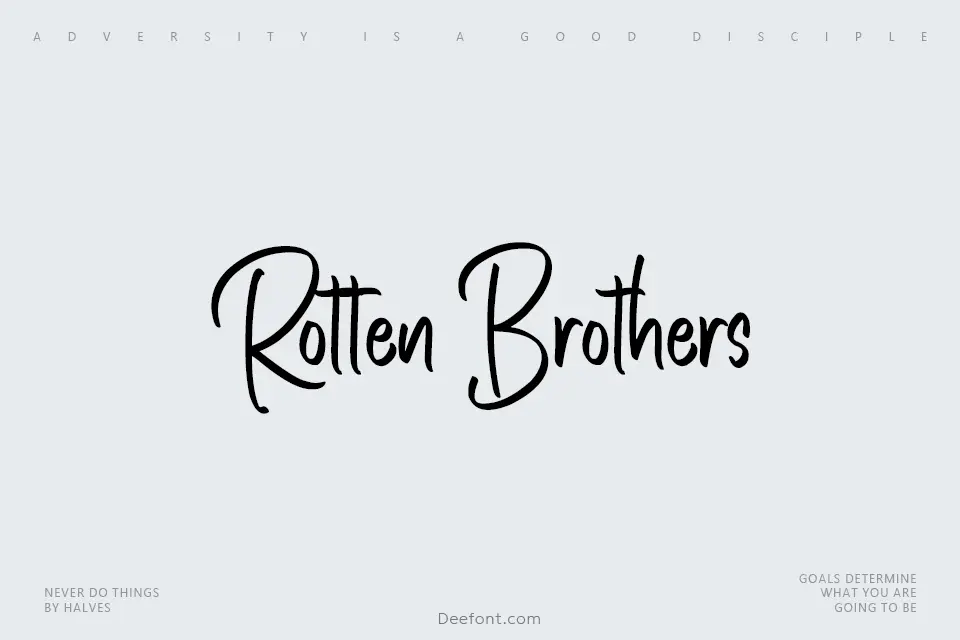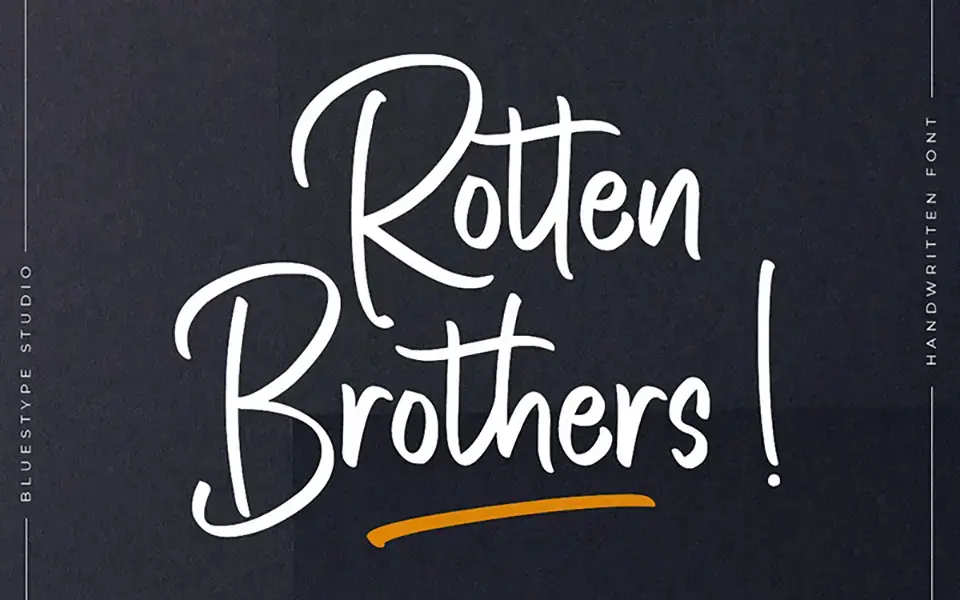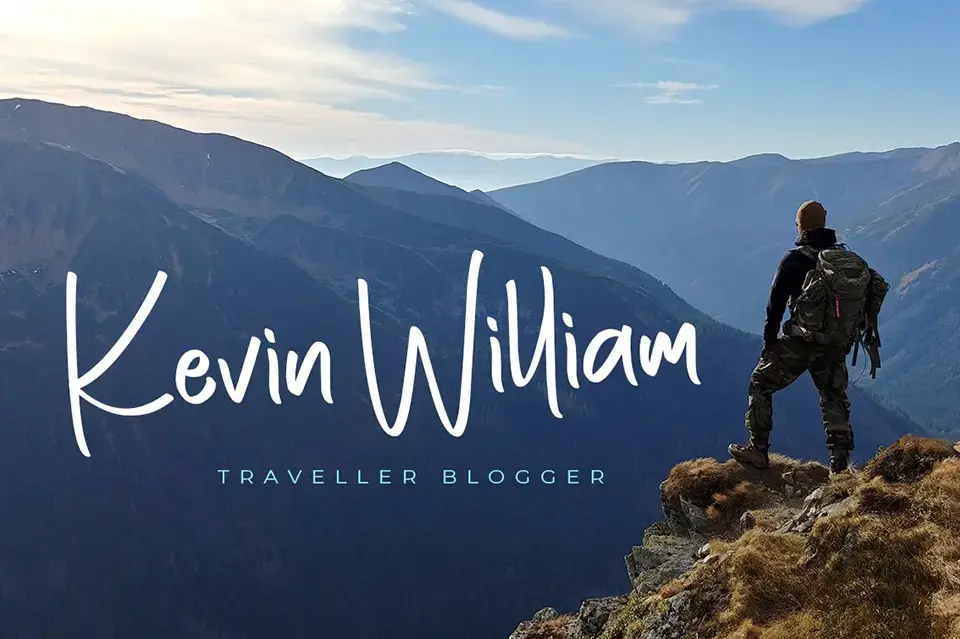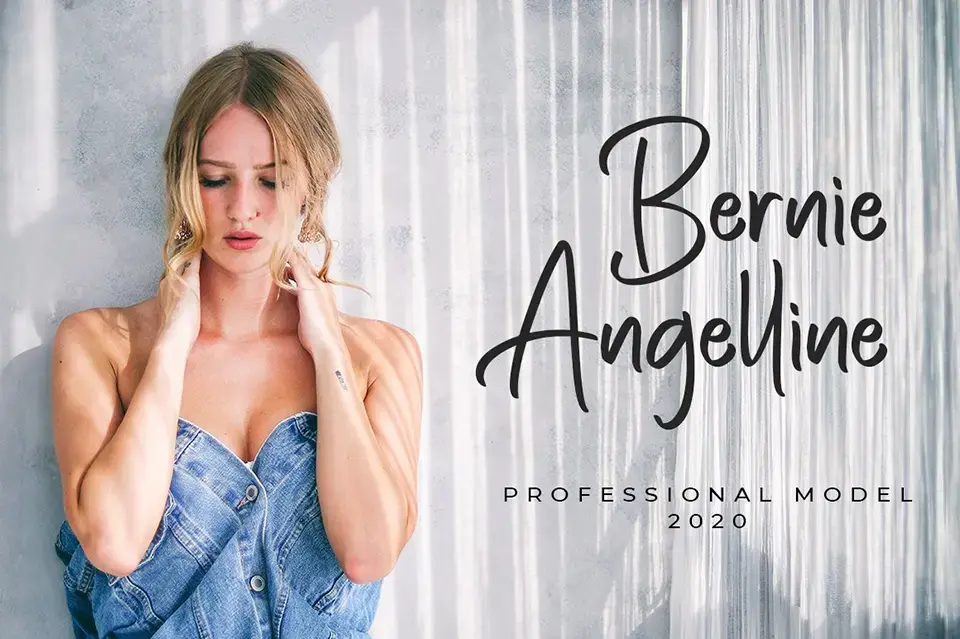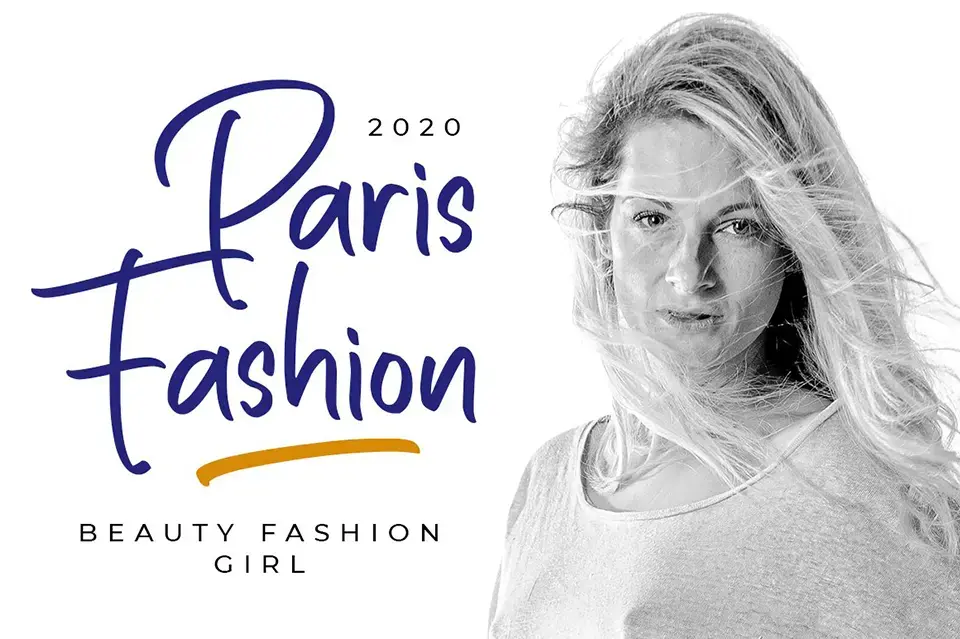
Rotten Brothers Font
Rotten Brothers is a distinctive handwritten script font featuring raw brush strokes and organic letterforms that evoke a playful yet eerie aesthetic. With its irregular curves and textured appearance, this typeface excels at capturing attention in headline designs, Halloween-themed projects, poster compositions, and decorative applications. The font contains 187 glyphs including uppercase, lowercase, numerals, and punctuation marks, making it versatile for various design scenarios. Its expressive nature makes it ideal for horror movie titles, spooky greeting cards, event invitations, logo concepts, and any project requiring a hand-drawn, unconventional character.